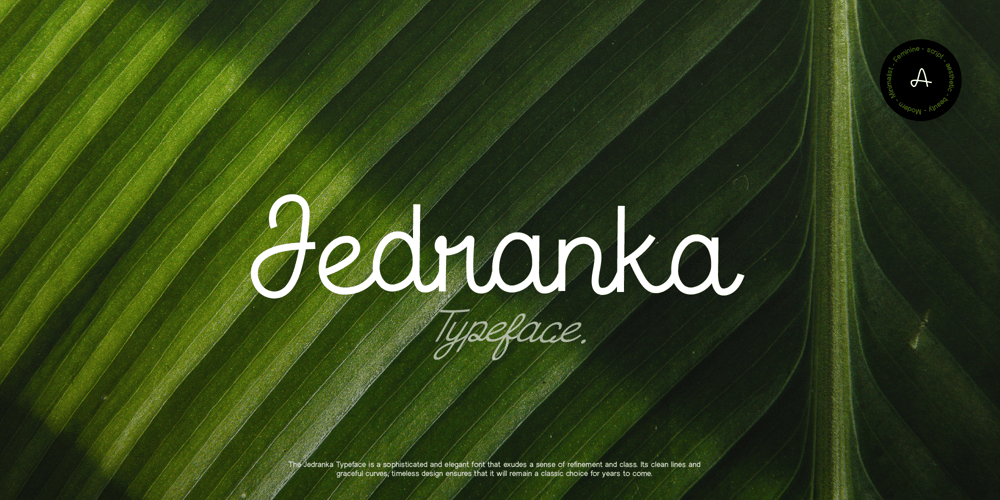
Jedranka Font Family was designed by Alif Naufal Muzakki and published by Phoenix Group. Jedranka contains 3 styles and family package options. The Jedranka Typeface is a sophisticated and elegant font that exudes a sense of refinement and class. Its clean lines and graceful curves, timeless design ensure that it will remain a classic choice for years to come.